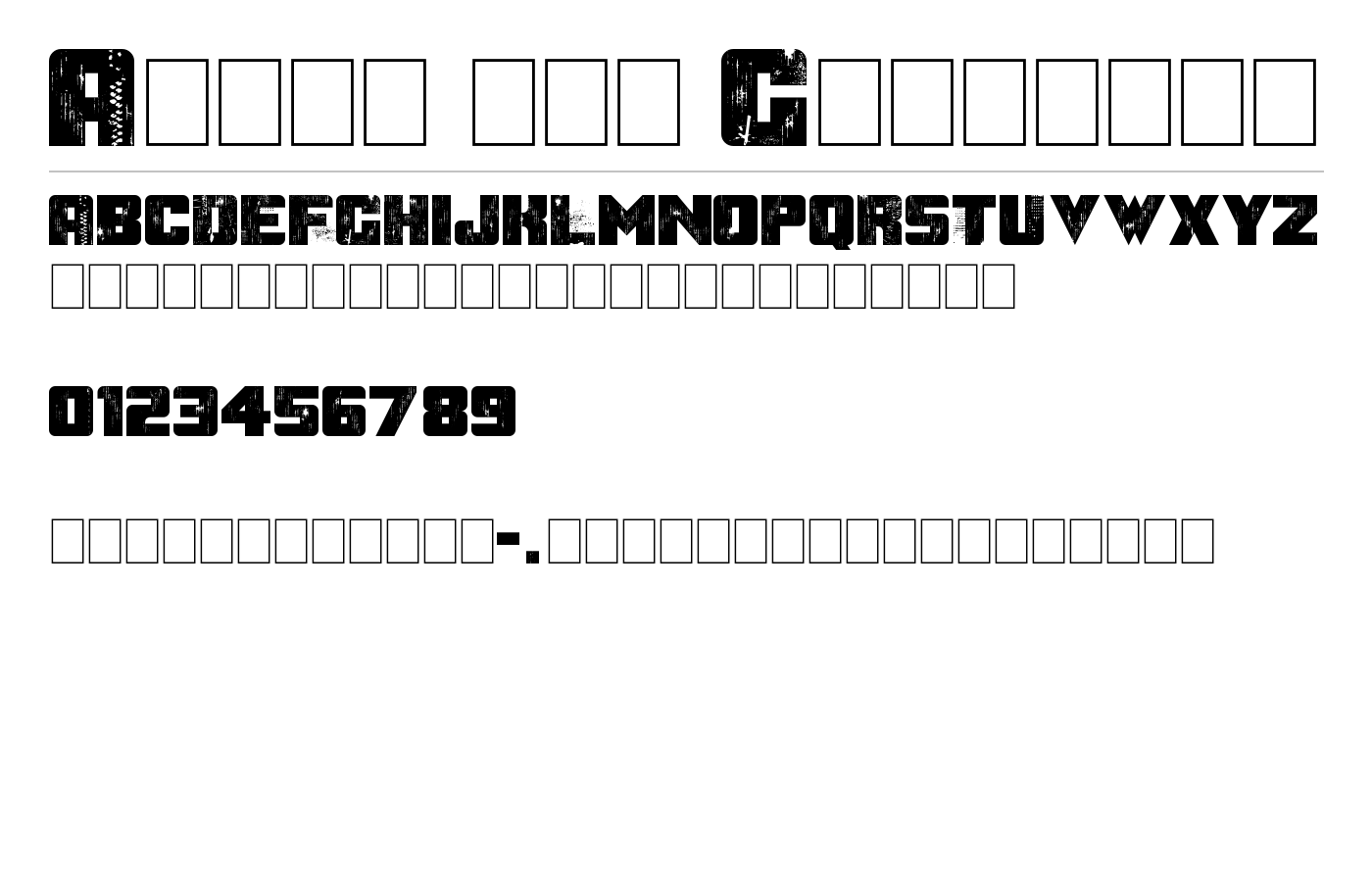
After the Goldrush is a bold, condensed sans serif font with a rugged, distressed texture that gives it a vintage, industrial feel. Its strong, blocky letterforms and rough surface detail make it ideal for grabbing attention in logos, posters, or packaging where a bold, gritty style is desired. This font works best in headline or display use, adding character and toughness to designs that need a raw, impactful look.
After the Goldrush Font
About After the Goldrush Font
| Font family | After the Goldrush Font |
| Designer | imagex |